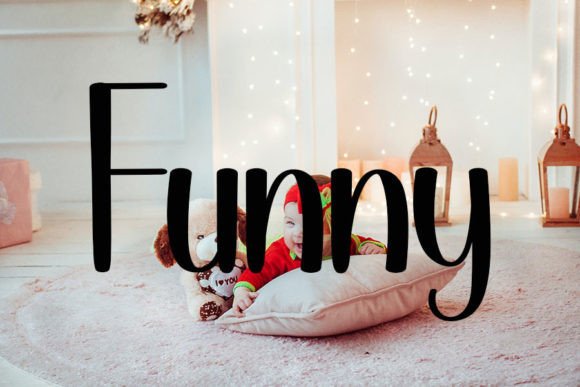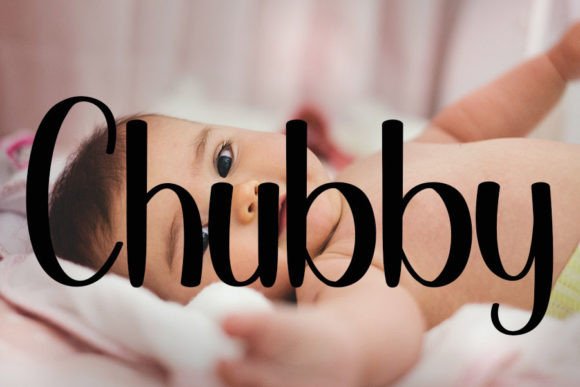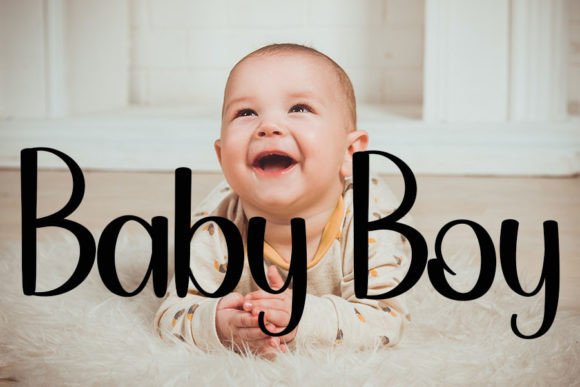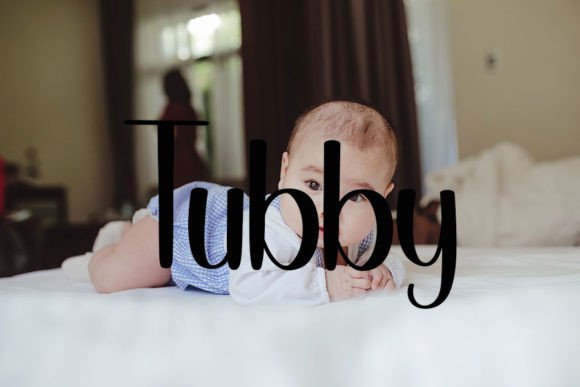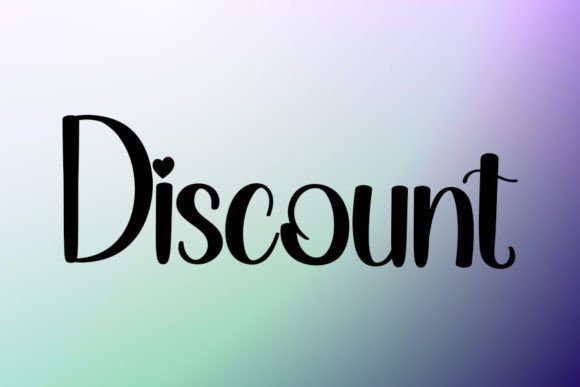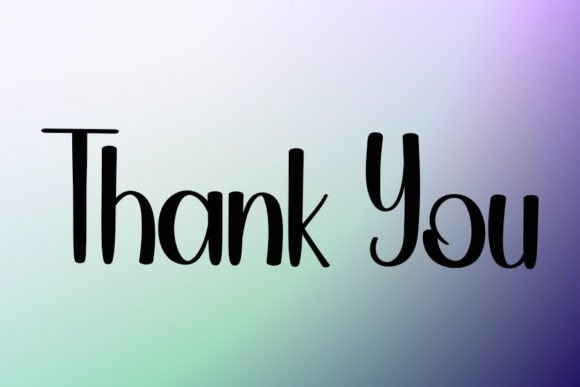
The Grinch Font: A Timeless and Elegant Handwritten Style for Your Designs
Are you looking for a font that adds a touch of sophistication and whimsy to your designs? Look no further than the Grinch Font, a beautiful handwritten font that is sure to capture your heart. With its elegant touch and distinct style, this font is perfect for designers and crafters who want to create spectacular designs that stand out from the crowd.
What is the Grinch Font?
The Grinch Font is a handwritten font that is described by its elegant touch, making it perfect for a variety of design projects. Its incredibly distinct and timeless style is sure to fall in love with, and it’s an excellent choice for designers who want to add a personal touch to their work. Whether you’re working on a branding project, a wedding invitation, or a social media graphic, the Grinch Font is a versatile and beautiful choice.
Characteristics of the Grinch Font
The Grinch Font has several characteristics that make it a standout choice for designers. Some of its key features include:
- Elegant touch: The Grinch Font has a sophisticated and refined feel that makes it perfect for designs that require a touch of luxury.
- Handwritten style: The font’s handwritten style gives it a personal and unique feel that’s perfect for designs that want to stand out.
- Distinct and timeless style: The Grinch Font has a distinct and timeless style that’s sure to capture your heart. Its classic look ensures that it will remain stylish for years to come.
Uses for the Grinch Font
The Grinch Font is a versatile font that can be used for a variety of design projects. Some popular uses for the font include:
- Branding projects: The Grinch Font is perfect for branding projects that require a touch of sophistication and elegance.
- Wedding invitations: The font’s elegant touch makes it a popular choice for wedding invitations and other formal events.
- Social media graphics: The Grinch Font is a great choice for social media graphics that want to stand out from the crowd.
- Logos and icons: The font’s unique style makes it perfect for logos and icons that want to make a statement.
Why Choose the Grinch Font?
There are many reasons why designers and crafters choose the Grinch Font for their projects. Some of the benefits of using the font include:
- Unique style: The Grinch Font has a unique style that’s sure to capture your heart. Its elegant touch and handwritten style make it a standout choice for designers.
- Versatility: The font is versatile and can be used for a variety of design projects, from branding to social media graphics.
Tips for Using the Grinch Font
Here are some tips for using the Grinch Font in your designs:
- Pair it with other fonts: The Grinch Font pairs well with other fonts, such as sans-serif fonts or script fonts. Experiment with different pairings to find the one that works best for your design.
- Use it for headings and titles: The Grinch Font is perfect for headings and titles, where its elegant touch and handwritten style can really shine.
- Experiment with colors: The Grinch Font looks great in a variety of colors, from bold and bright to soft and pastel. Experiment with different colors to find the one that works best for your design.
The Grinch Font is a beautiful and elegant handwritten font that’s perfect for designers and crafters who want to add a touch of sophistication and whimsy to their designs. With its distinct and timeless style, versatility, and ease of use, it’s a great choice for a variety of design projects. Whether you’re working on a branding project, a wedding invitation, or a social media graphic, the Grinch Font is sure to capture your heart and help you create spectacular designs.